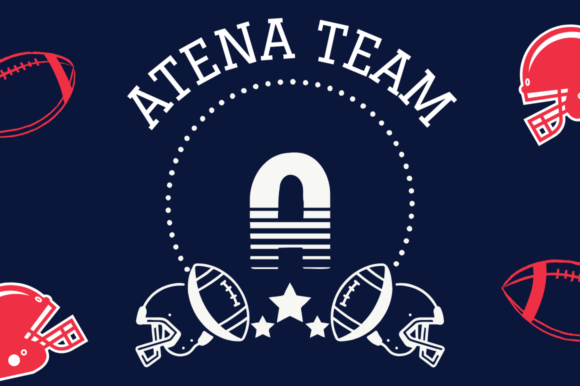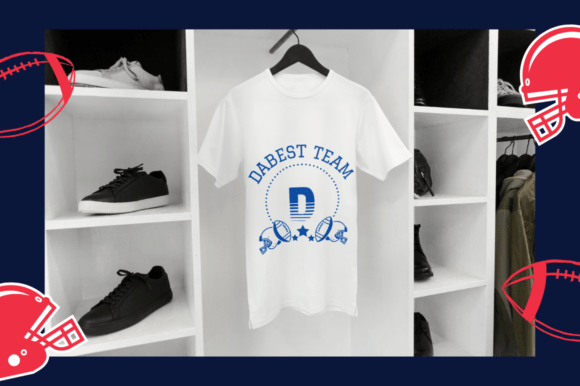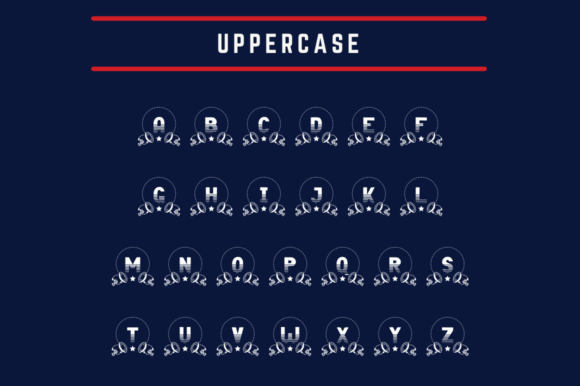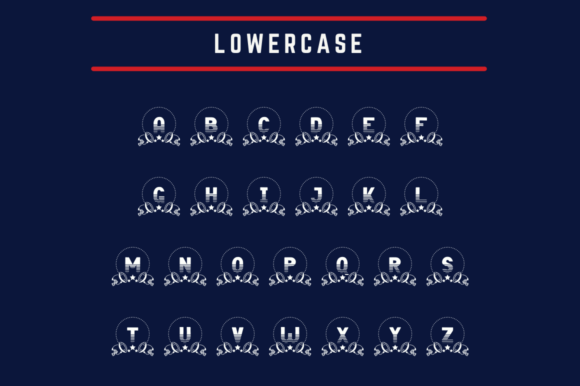
Introducing Circle Rugby Monogram Font: The Ultimate Choice for Sports-Themed Designs
In the world of typography, fonts play a crucial role in conveying the tone and personality of a brand or design. For designers and crafters looking to create sports-themed projects, a font that embodies the spirit of athleticism and competition is essential. This is where the Circle Rugby Monogram Font comes in – a bold and athletic typeface designed with American football and rugby in mind.
What is Circle Rugby Monogram Font?
Circle Rugby Monogram Font is a unique and stylish typeface that combines the themes of American football and rugby to create a distinctive and sporty aesthetic. Characterized by its strong lines, bold shapes, and dynamic design, this font is perfect for creating eye-catching team logos, sports merchandise, jersey designs, invitations, and branding materials.
Key Features of Circle Rugby Monogram Font
- Bold and Athletic Design: The Circle Rugby Monogram Font features a bold and athletic design that is sure to grab attention. Its strong lines and sporty aesthetic make it perfect for sports-themed projects.
- American Football and Rugby Inspiration: The font’s design is inspired by the themes of American football and rugby, making it an excellent choice for team logos, jersey designs, and sports merchandise.
- Versatile Applications: The Circle Rugby Monogram Font can be used for a wide range of applications, including team logos, sports merchandise, jersey designs, invitations, and branding materials.
- Easily Customizable: The font’s design allows for easy customization, making it simple to adapt to your specific design needs.
Who Can Benefit from Circle Rugby Monogram Font?
The Circle Rugby Monogram Font is an excellent choice for designers, crafters, and sports enthusiasts looking to create sports-themed projects. This font is particularly useful for:
- Graphic Designers: Graphic designers can use the Circle Rugby Monogram Font to create stunning team logos, jersey designs, and branding materials for sports teams.
- Crafters: Crafters can use the font to create custom sports-themed crafts, such as iron-on designs, sports-themed invitations, and party decorations.
- Sports Teams: Sports teams can use the font to create their team logos, jersey designs, and branding materials, showcasing their team spirit and personality.
Tips for Using Circle Rugby Monogram Font
To get the most out of the Circle Rugby Monogram Font, here are some tips to keep in mind:
- Pair with Complementary Fonts: Pair the Circle Rugby Monogram Font with complementary fonts to create a visually appealing design.
- Use in Sports-Themed Projects: Use the font in sports-themed projects, such as team logos, jersey designs, and sports merchandise.
- Experiment with Colors: Experiment with different colors to find the perfect combination that matches your team’s personality and style.
The Circle Rugby Monogram Font is an excellent choice for designers, crafters, and sports enthusiasts looking to create sports-themed projects. With its bold and athletic design, versatile applications, and easily customizable features, this font is sure to become a favorite among designers and crafters. Whether you’re creating team logos, jersey designs, or sports merchandise, the Circle Rugby Monogram Font is the perfect choice for your next project.